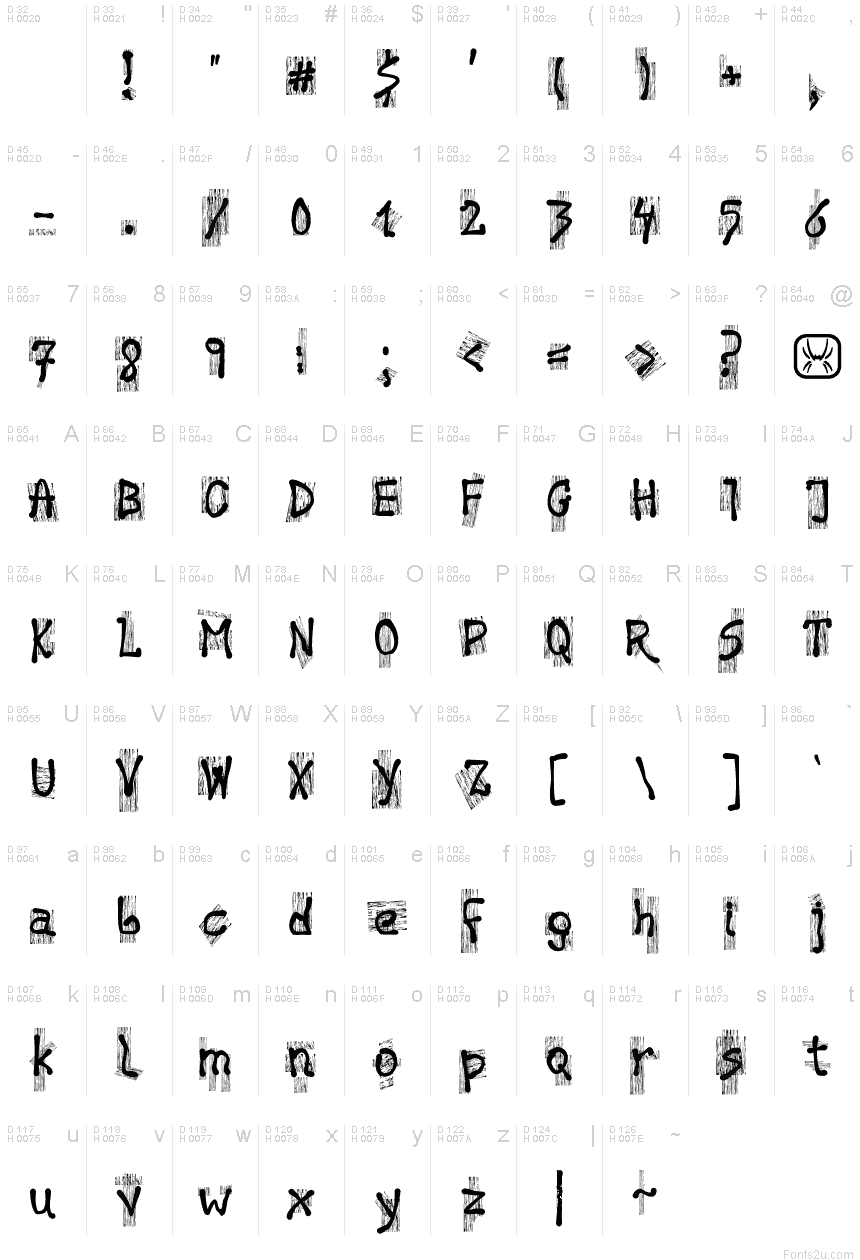
History Brush
History Brush font by Atrax is a free grunge brush display typeface that looks like it’s been scrawled over a wall of scratched paint and torn posters. Thick, inky letters sit on top of rough, streaky textures, so every word feels like a collision of marker pen and battered plywood. The contrast between the smooth, rounded strokes and the gritty background gives your titles a raw, handmade energy that’s hard to fake.
Using History Brush, you can instantly roughen up gig posters, zines, horror covers, streetwear graphics, YouTube thumbnails, and album art. This free font shines when you use it big and bold, then pair it with a clean, neutral sans serif for body text to keep everything readable. Drop it over dark photos or grungy textures, and your layouts will feel loud, messy, and deliciously chaotic.